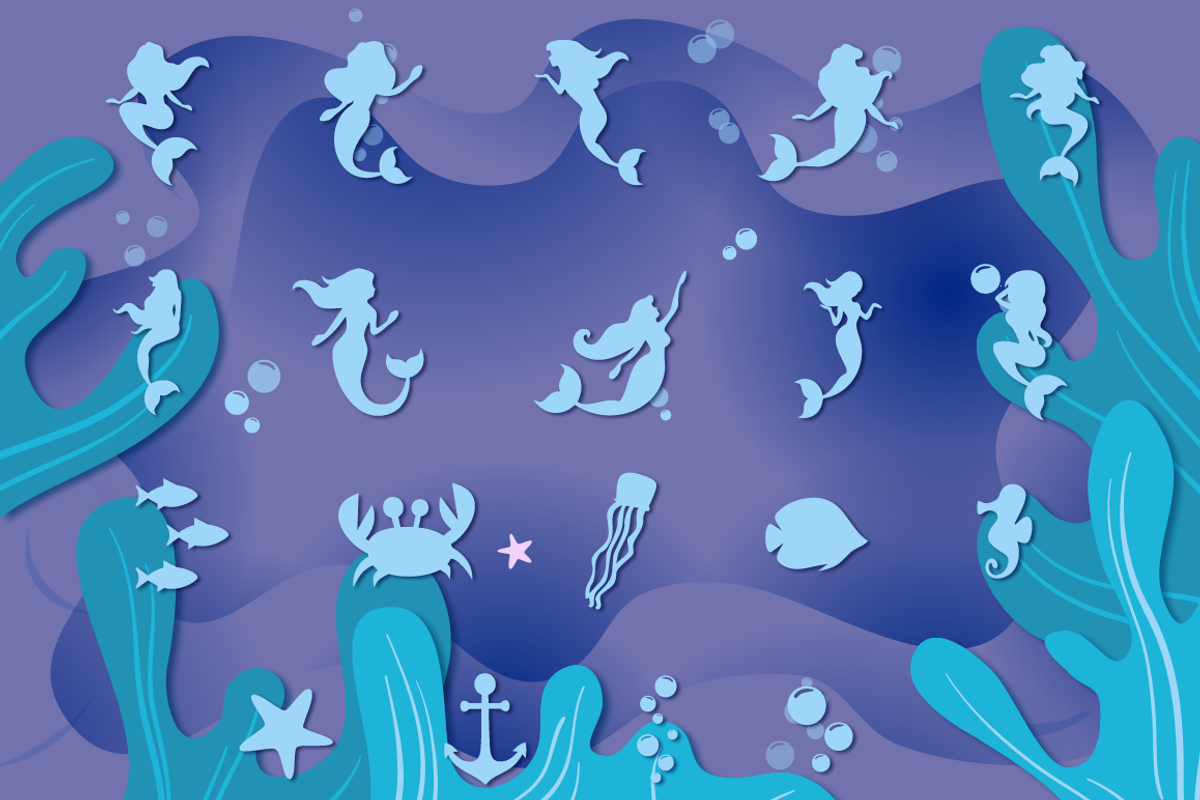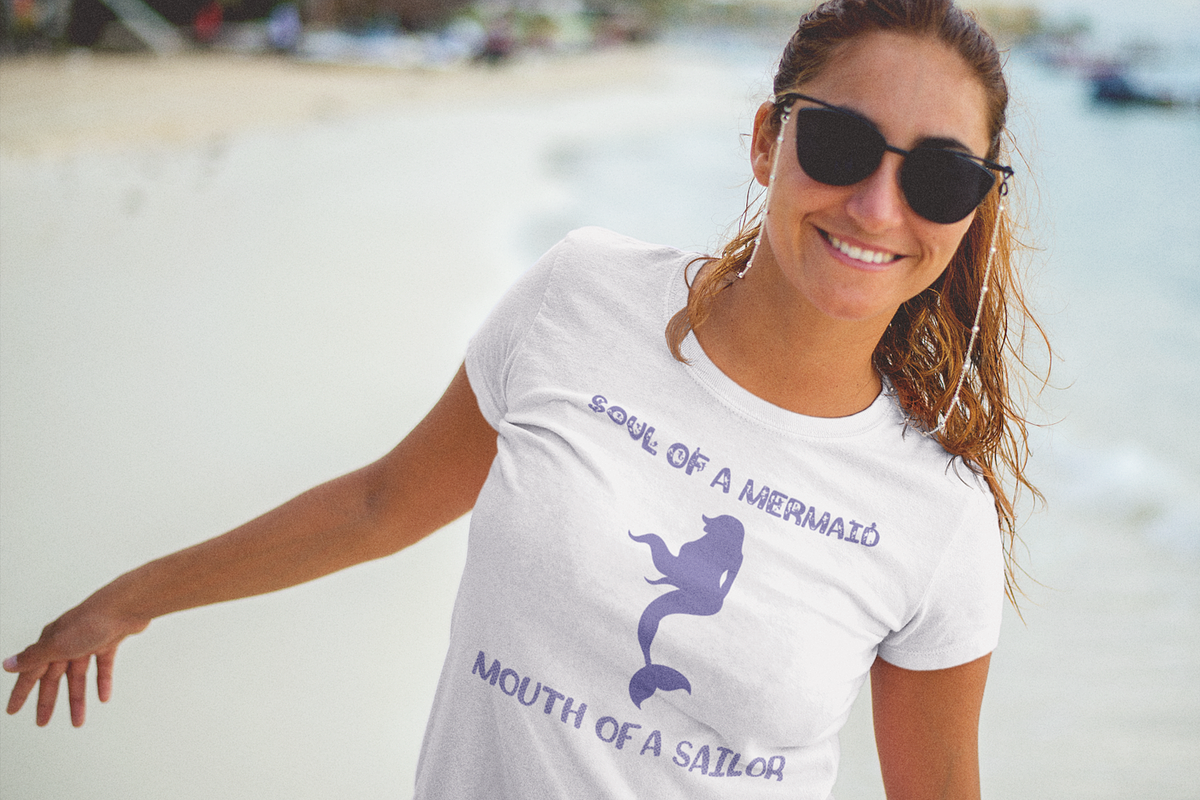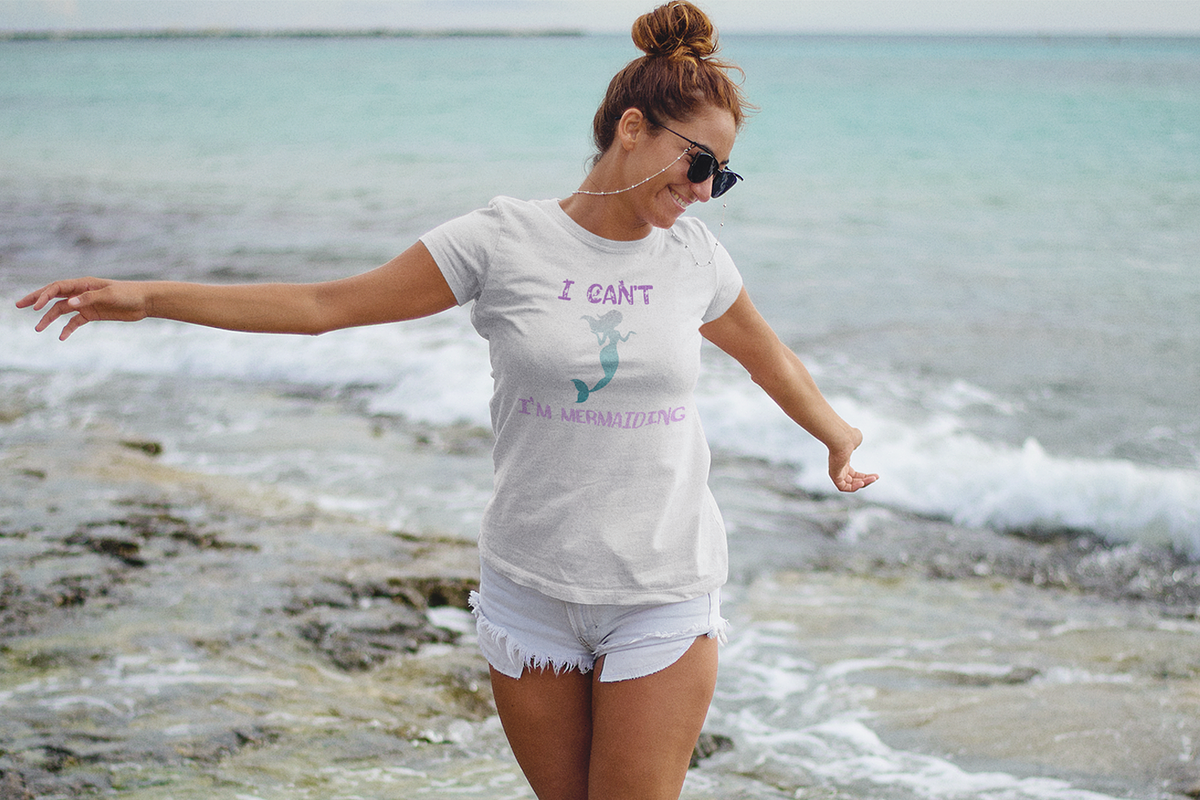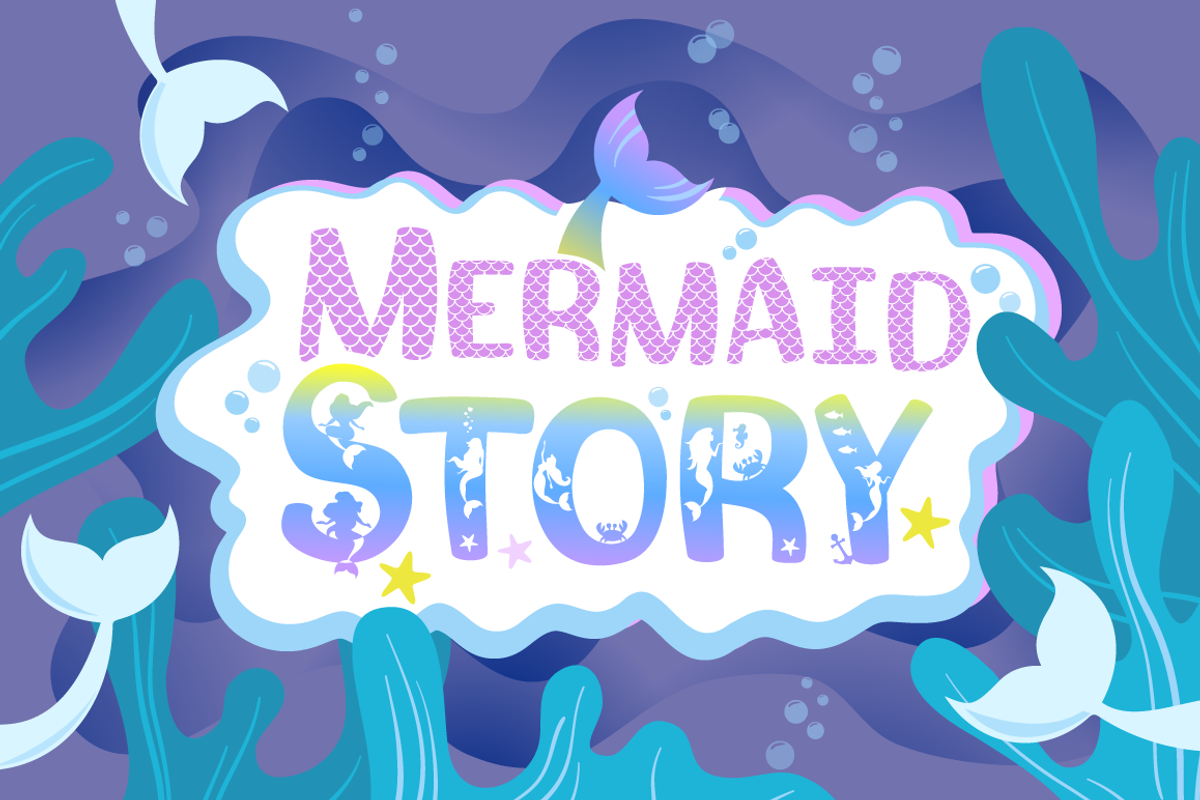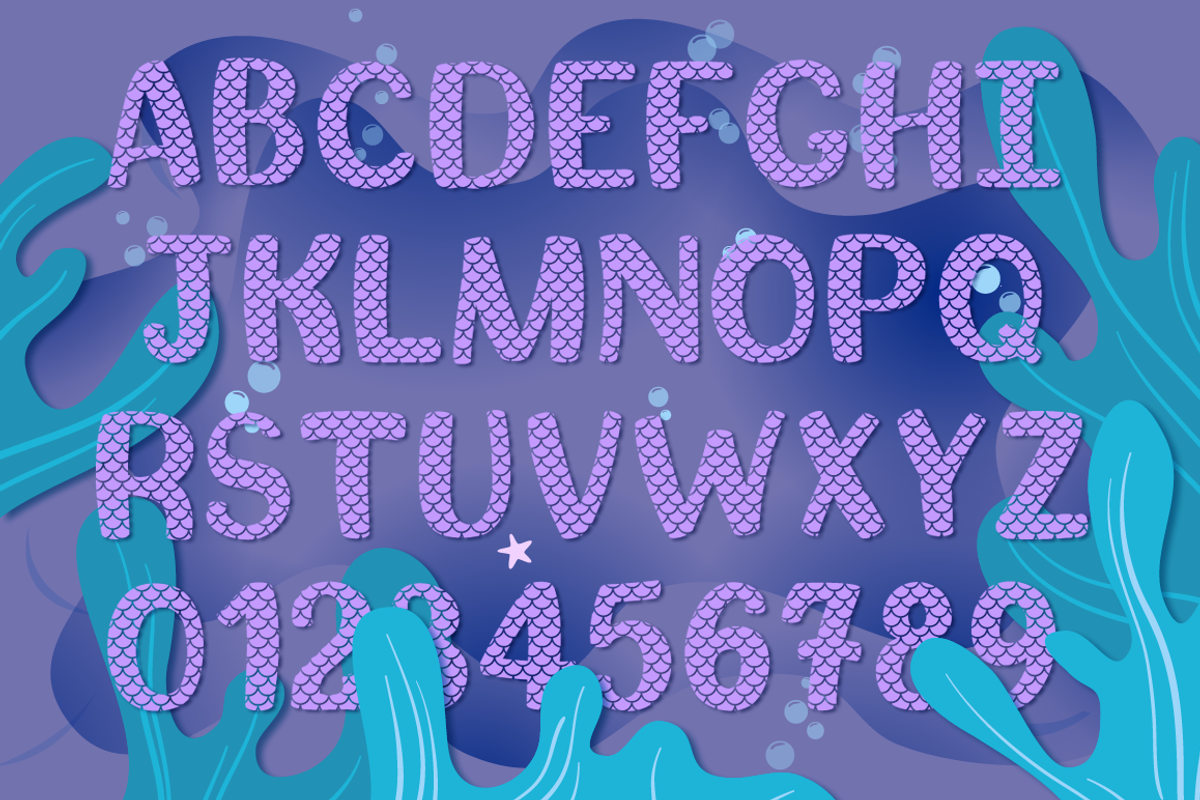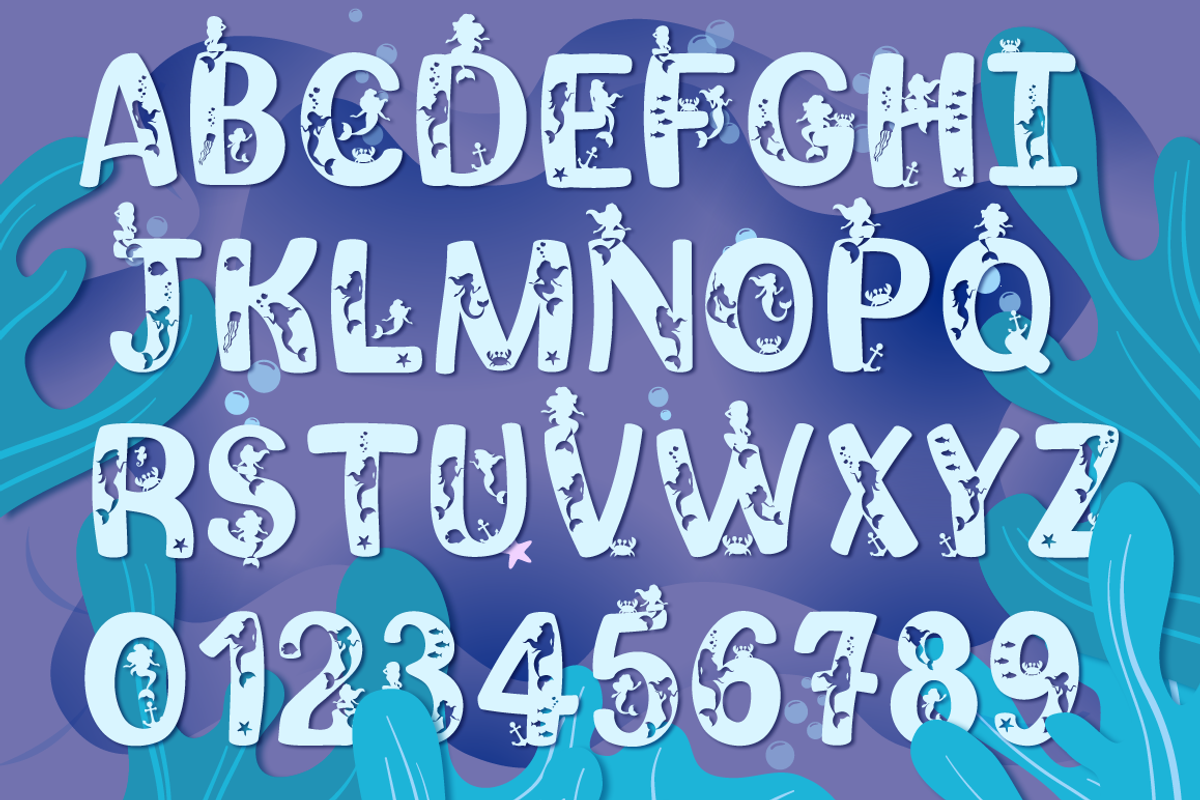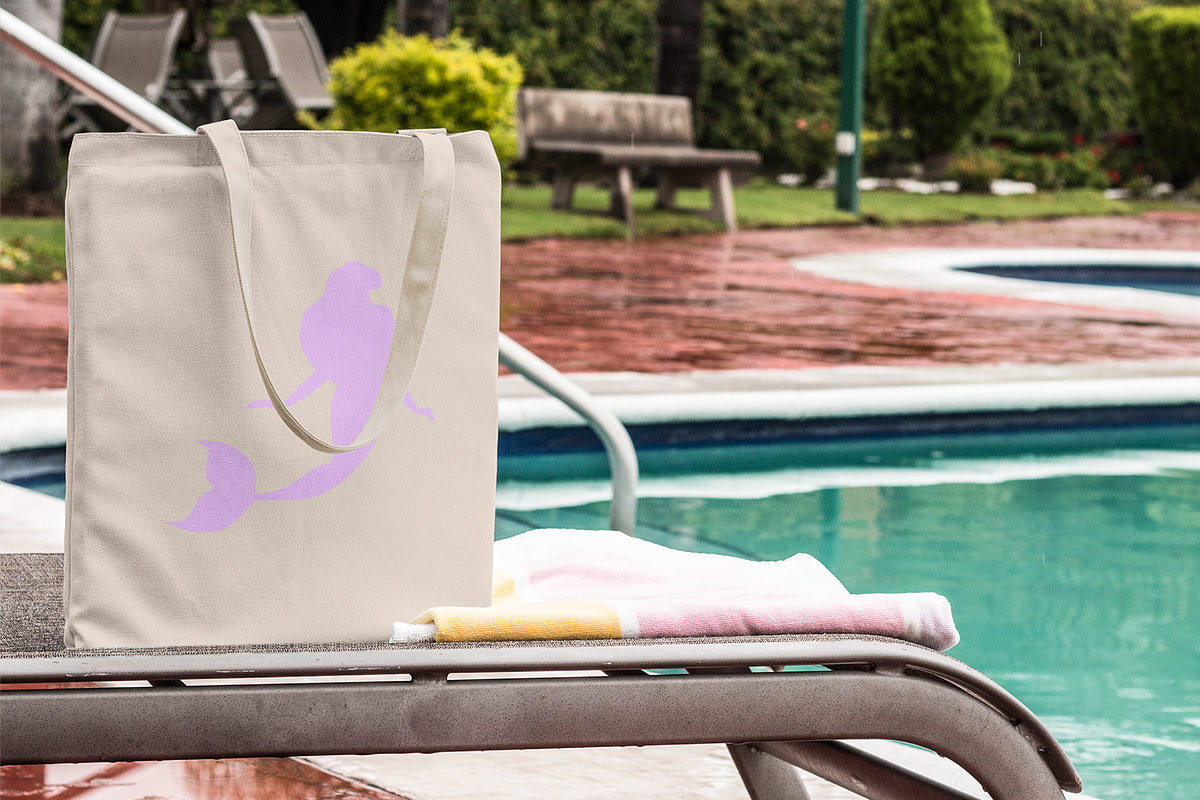
Mermaid Story Font Duo & Extras
It is a handcrafted font created from scratch, using as little points as possible to ensure you get the best results with minimum difficulty.
Mermaids Animated with Regular & Animated Version. The uppercase letters are with mermaids, the lowercase are clean. It comes with A-Z letters, numbers and punctuation.
Mermaid Scales. It comes with A-Z letters and numbers, no punctuation.
Mermaids Extras with 19 mermaids and sea creatures